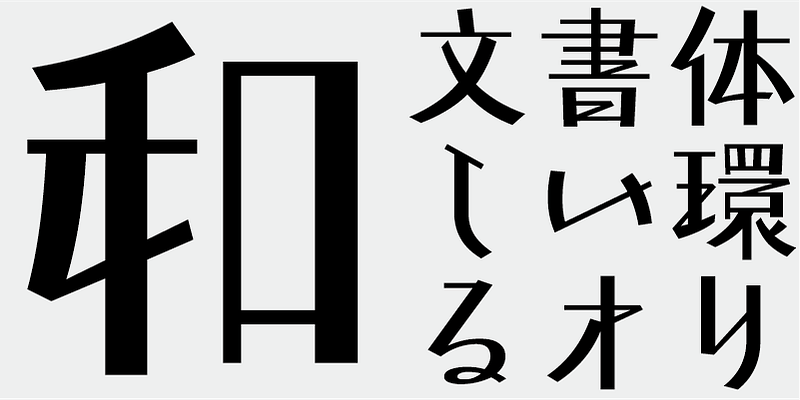
AB Gagaku M Font Free Download is an elegant serif typeface that beautifully balances traditional design with modern features. Its finely crafted strokes and classic letterforms make it ideal for projects that require sophistication and a timeless look, such as luxury branding, editorial layouts, invitations, and high-end packaging.
AB Gagaku M offers great versatility, making it suitable for both display and body text. Its high legibility and refined aesthetic work well in both digital and print applications. It integrates seamlessly with design tools like Adobe Illustrator, Photoshop, Figma, and Canva, allowing you to easily incorporate it into your creative projects.